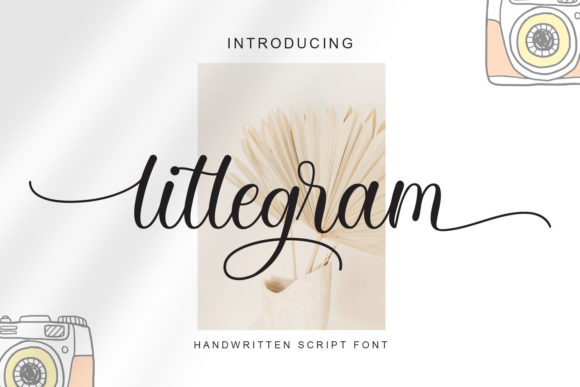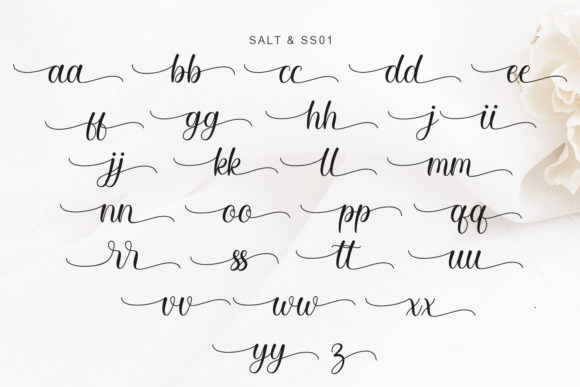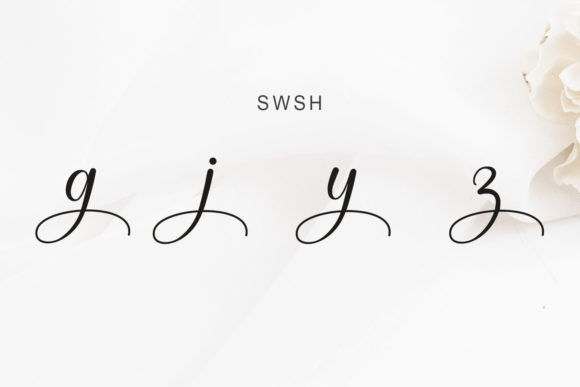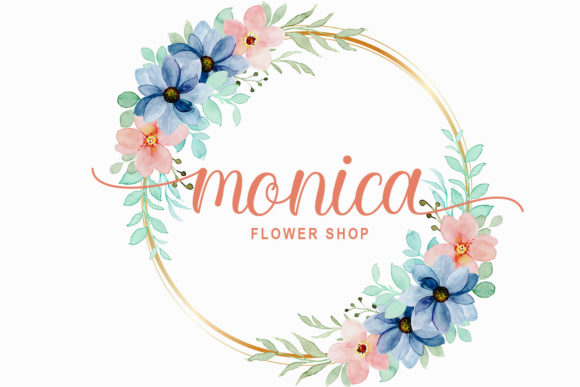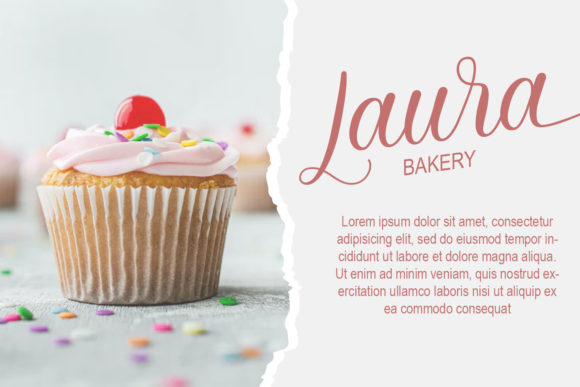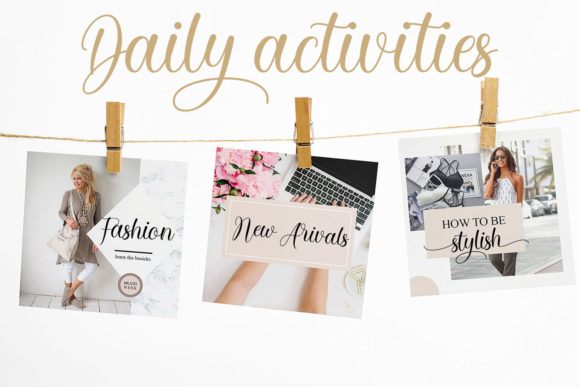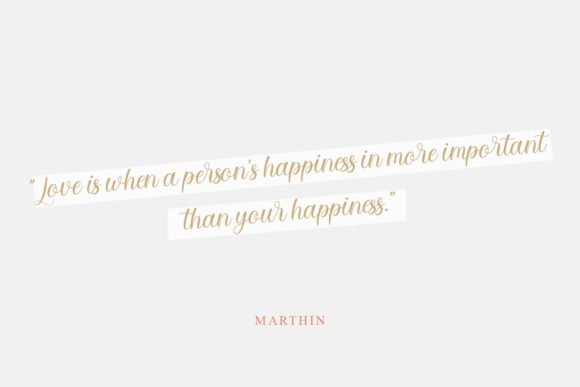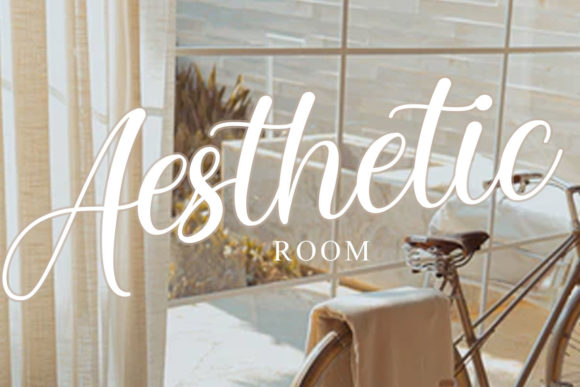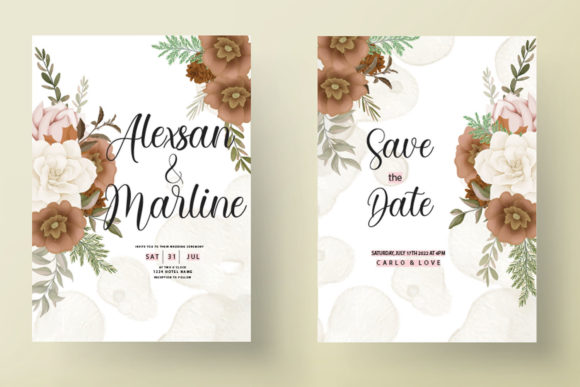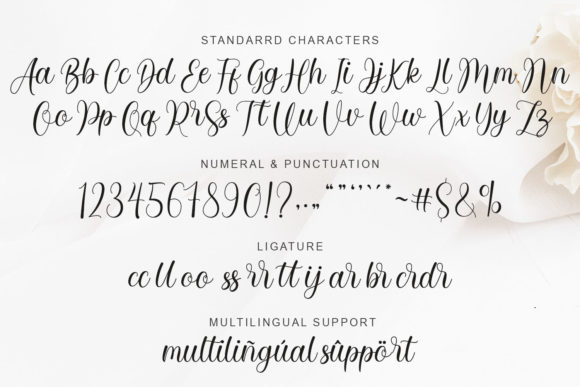
Litlegram Font
Litlegram is a lovely and timeless handwritten font. It is the best choice for creating eye catching logos, branding and quotes. Litlegram is PUA encoded which means you can access all glyphs and swashes with ease!